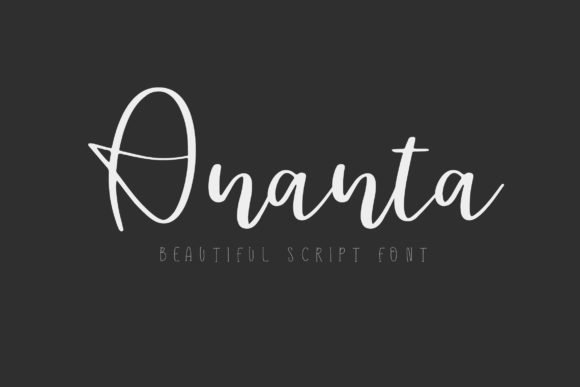
Unleash Your Creativity with the Timeless Elegance of Ananta Font
Have you ever stared at a blank page, waiting for that spark of inspiration to strike? For many designers, it’s a familiar feeling. But what if I told you that the perfect font could be the key to unlocking your creativity? Introducing the Ananta Font, a beautiful and vintage-styled script font that’s perfect for fashion branding or editorial designs.
With its smooth curves and classic charm, the Ananta Font is a valuable addition to any designer’s toolkit. Whether you’re working on a high-end fashion campaign or a sophisticated editorial spread, this font is sure to elevate your project to the next level. Add it confidently to your designs and get ready to fall in love with the results.
Ananta Font Key Features
- Font Family: Ananta Font is a Unicode-based font family that supports multiple languages, including Devanagari, Latin, and other scripts.
- Character Set: The font family includes a wide range of characters, including letters, numbers, and symbols, with over 5000 glyphs in each font.
- Language Support: Ananta Font supports multiple languages, including Hindi, Marathi, Sanskrit, and other Indian languages, as well as Latin and other scripts.
Ananta Font Review
Overall, I think Ananta Font has some great qualities that make it a solid choice for designers. ✨ Here are a few things that I particularly like:
- The unique blend of traditional and modern elements creates a truly distinctive look.
- The font is highly legible, even at small sizes, which is essential for digital applications.
- Ananta Font comes in a range of weights and styles, giving designers a lot of flexibility in their projects.
- It’s great for creating a sense of elegance and sophistication in branding and marketing materials.
- The font may not be suitable for projects that require a more modern or futuristic feel.
- The range of language support is limited, which may be a concern for global brands or projects.
- Some users may find the font too ornate or busy, which can be overwhelming in certain contexts.
Overall, I think Ananta Font is a great choice for designers who want to add a touch of sophistication and elegance to their projects. While it may not be perfect for every application, it’s definitely worth considering for the right kind of project.
Getting the Most Out of Ananta Font
To get the most out of the Ananta font, use it for:
- Titles and headings to add a touch of elegance and sophistication.
- Body text to create a cohesive and professional look.
- Logos and branding to create a unique and memorable identity.
The Ananta font is commonly used for:
- Business and corporate communications.
- Marketing materials and advertising. Alternatives to Ananta Font for Designers
- Select a combination of colors that complement the font’s design.
- Use a mix of uppercase and lowercase letters to add visual interest.
- Experiment with different font sizes to create a sense of hierarchy.
- Use bold, geometric shapes to create a striking contrast with the flowing lines of the Ananta Font.
- Add subtle texture or patterns to the background to give it depth and visual interest.
- Select a limited color palette that complements the font’s design.
- Use a serif font for the invitation details, such as the date and location, to create a sense of formality.
- Experiment with different font sizes to create a sense of hierarchy.
- Use a minimalist border or frame to add a touch of elegance.
- Add a simple floral pattern or a subtle texture to the background to give it a romantic touch.
Yes, Ananta Font is optimized for digital use and is suitable for digital signage and screen display. However, please note that the font’s legibility and performance may vary depending on the display resolution and pixel density.